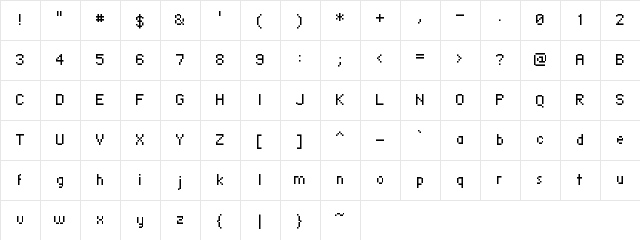
AlphaPixels Regular
| Designer | Regina Calhau |
Design Context for AlphaPixels Typeface
AlphaPixels celebrates the constraints of early digital type, turning pixel geometry into a distinctive and immediately recognisable style.
Well-suited to indie game interfaces, retro computing aesthetics, and pixel art-adjacent design work.
Pro Tip: Use AlphaPixels at sizes that align with its pixel grid for the sharpest rendering — scaling to non-integer multiples can introduce unwanted blur.